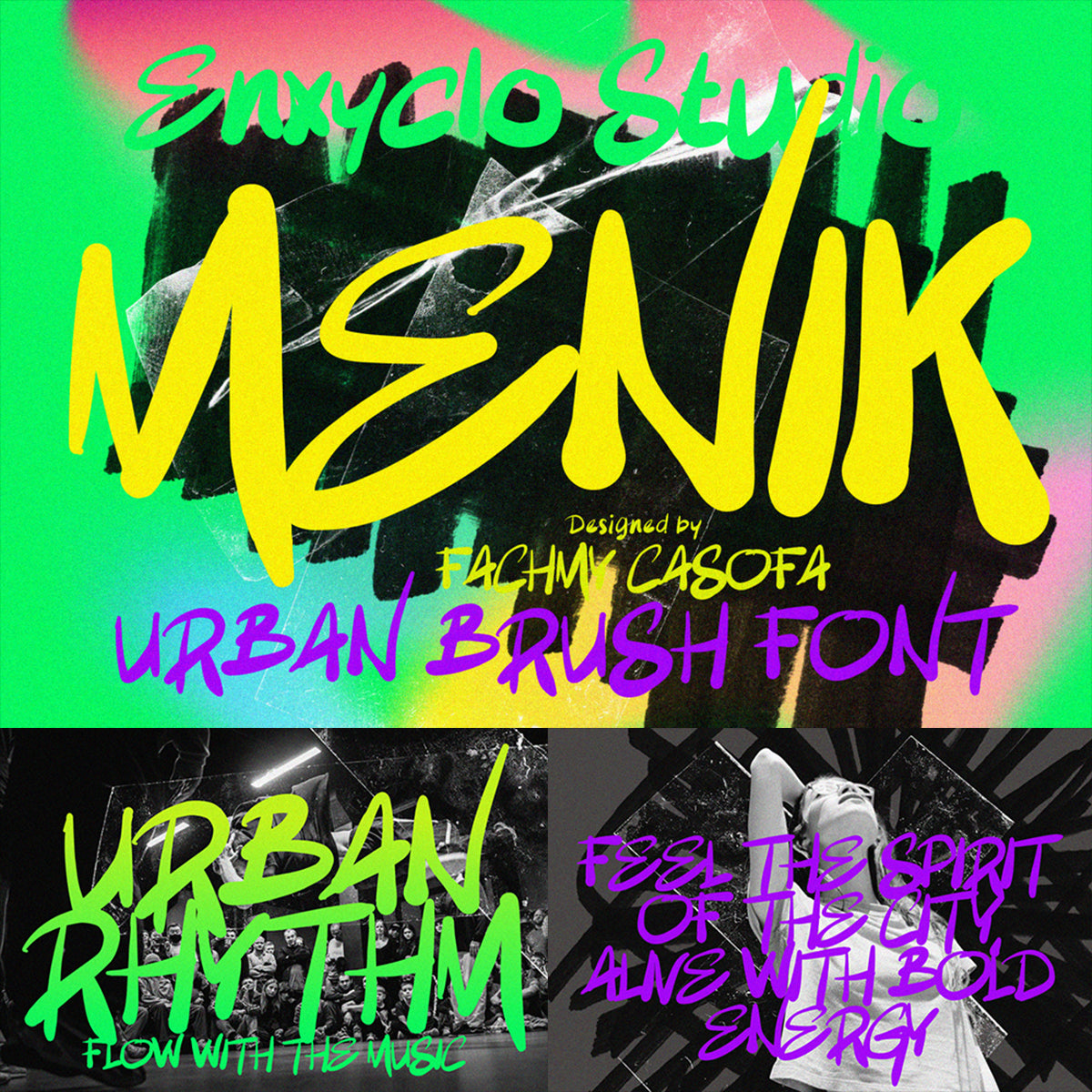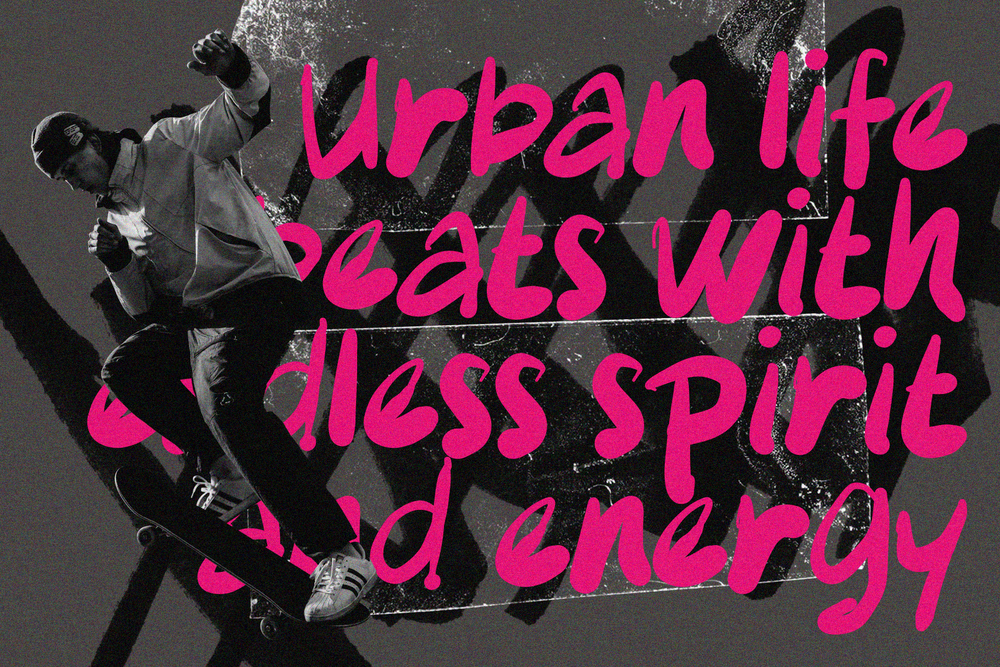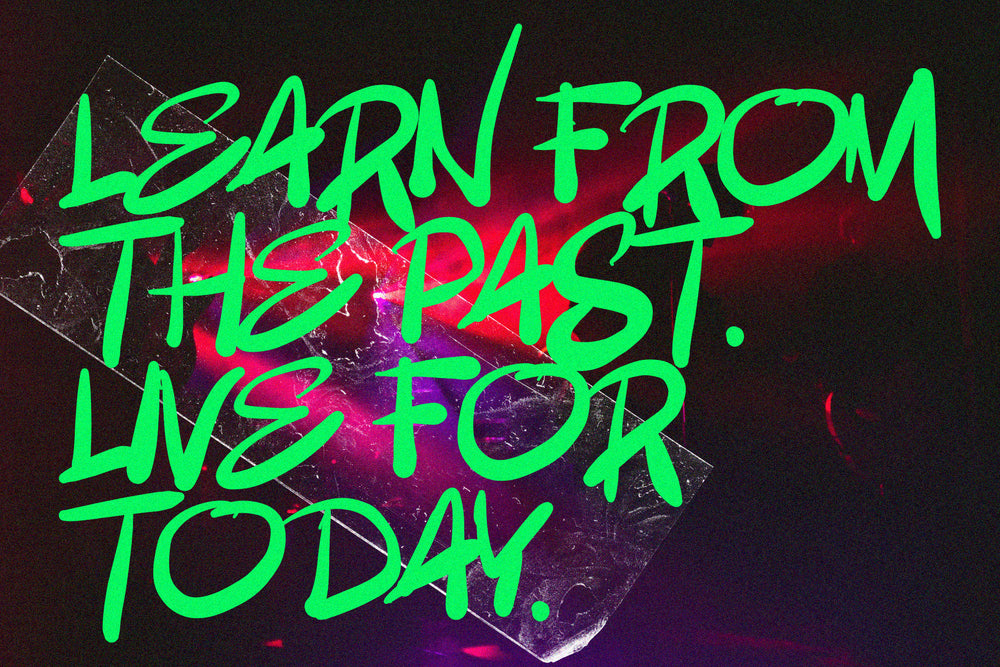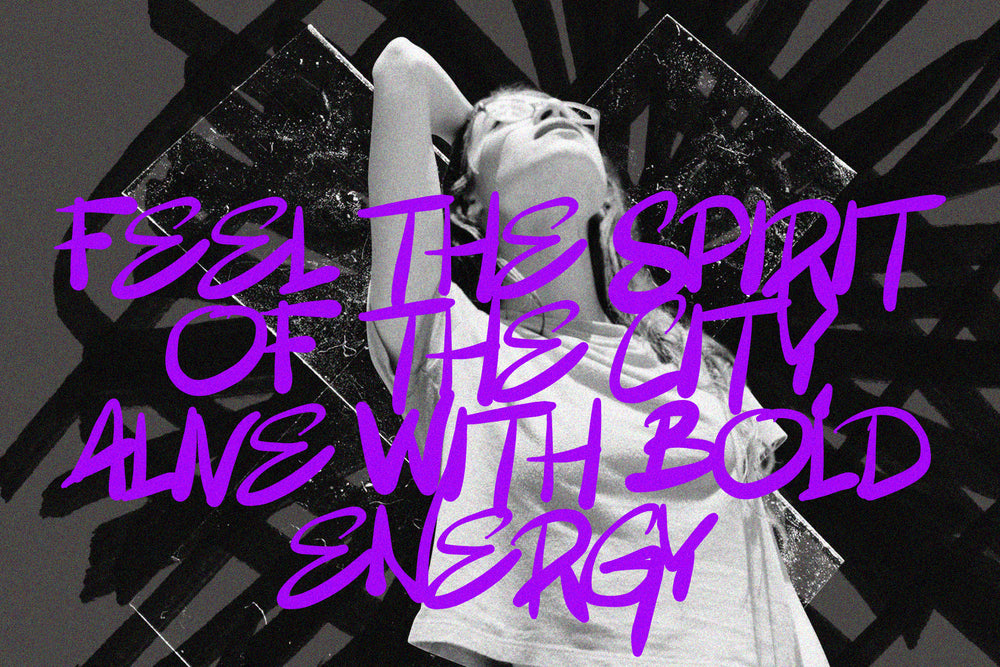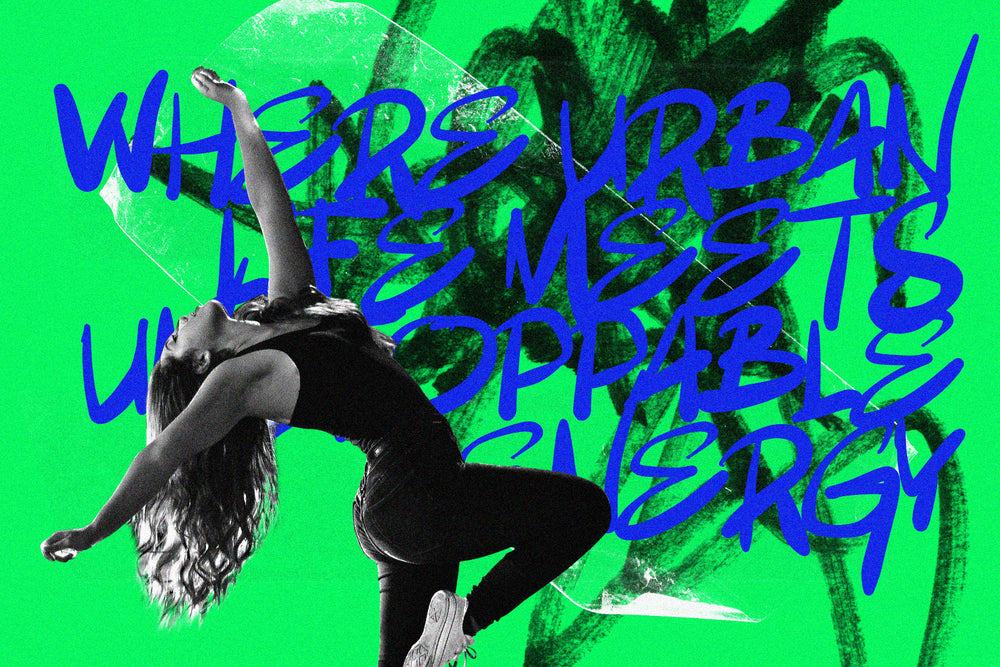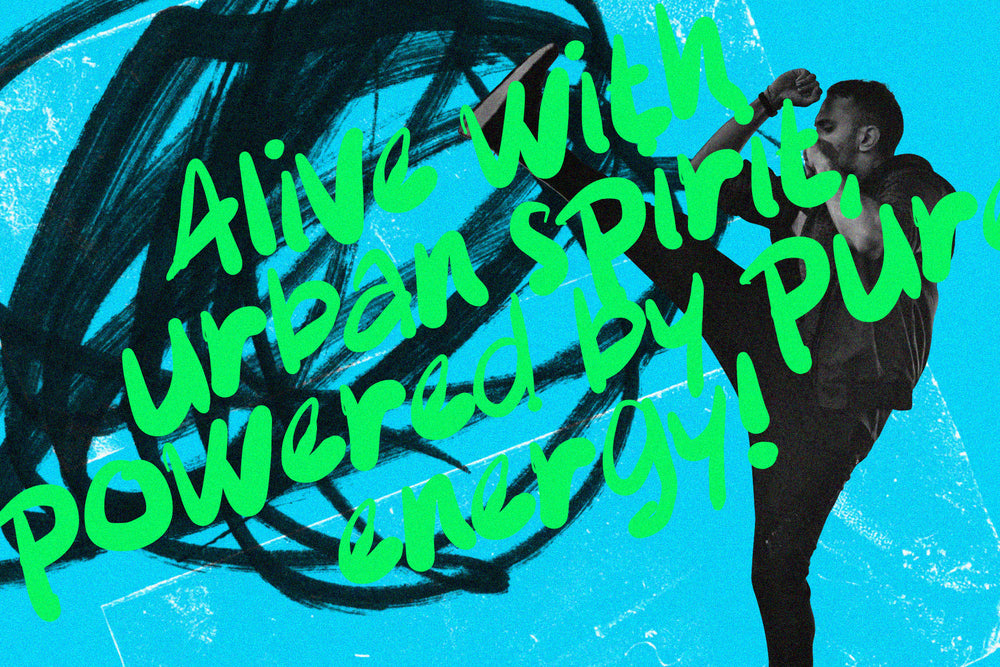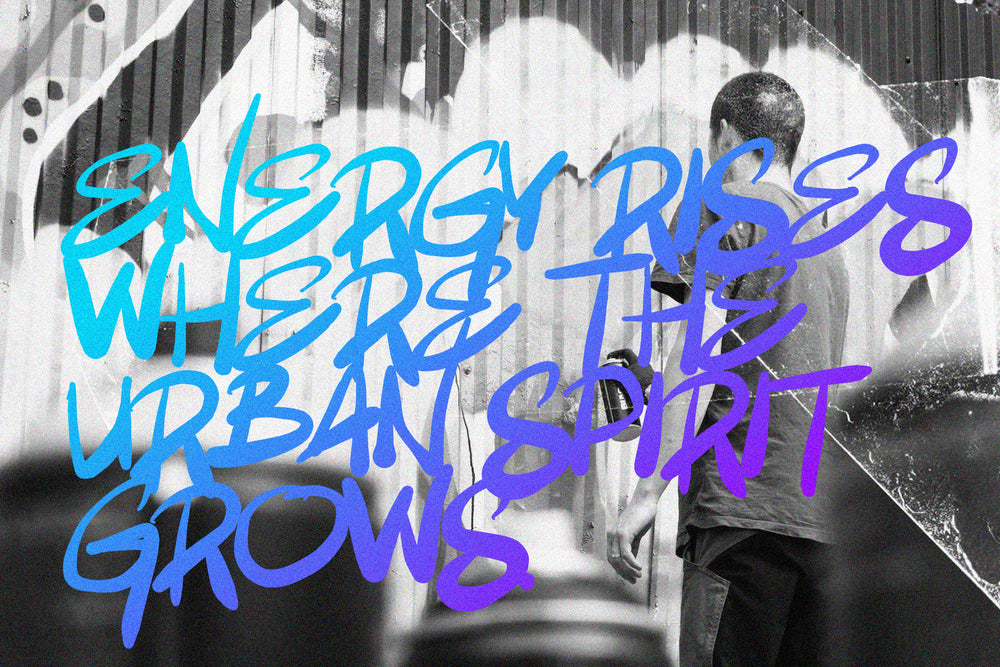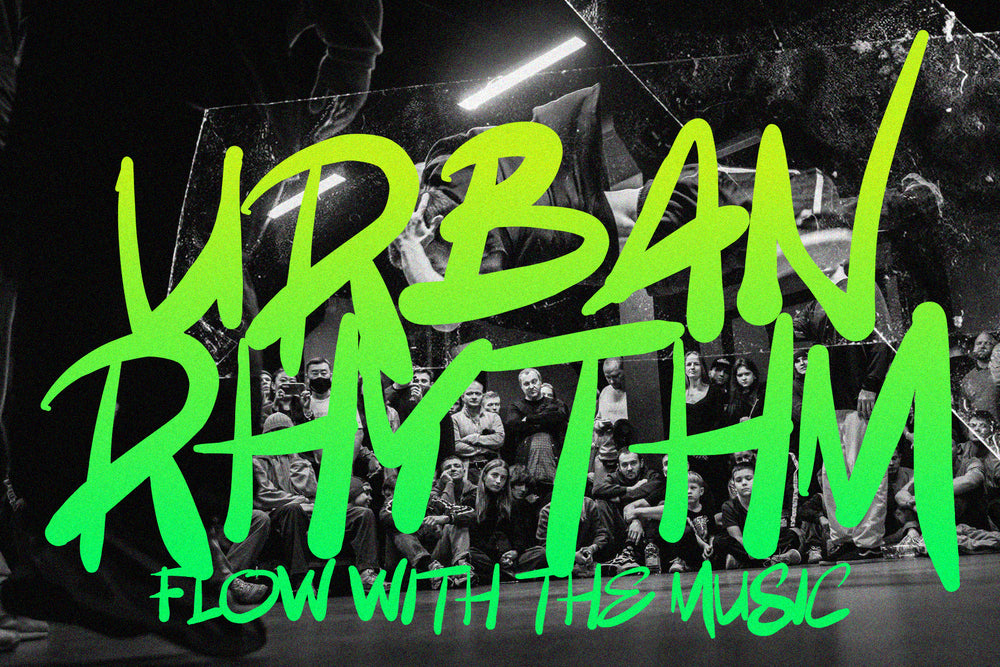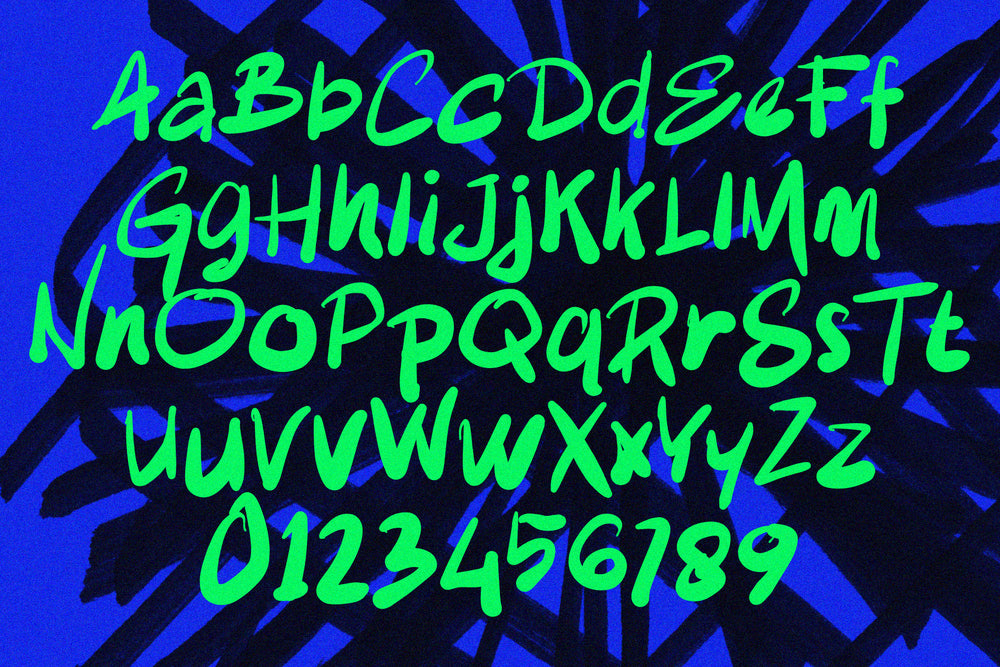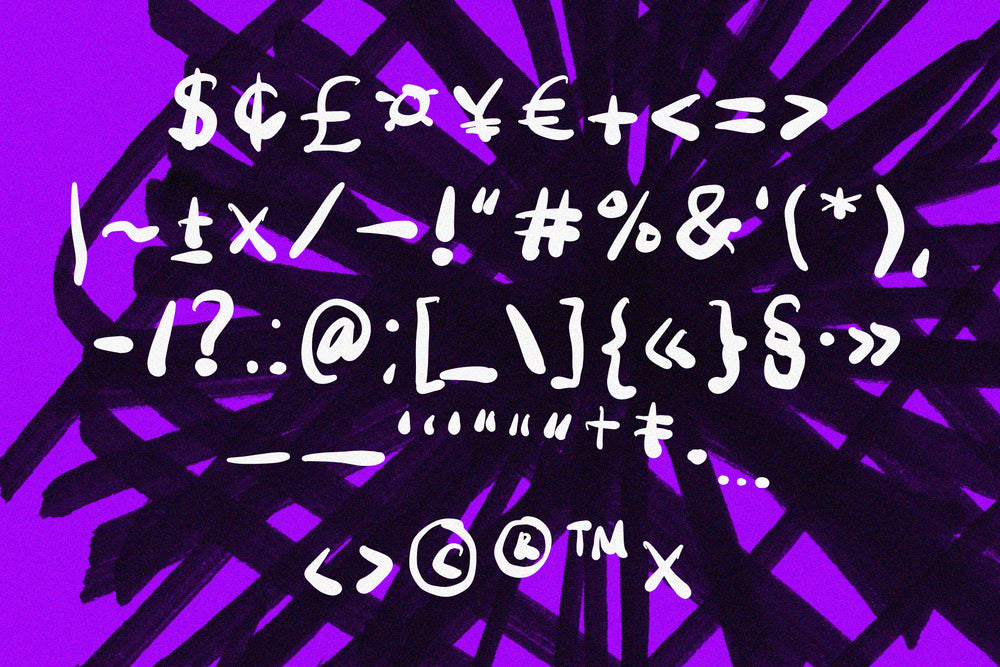
MENIK — Urban Brush Font
MENIK is an urban brush font featuring bold strokes and dynamic movement, designed to reflect the essence of street culture. It includes uppercase and lowercase letters, punctuation marks, a symbol set, and currency symbols, available in OTF, TTF, and WOFF formats.